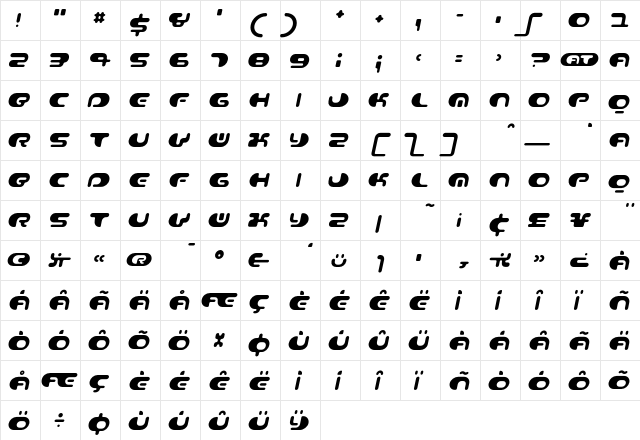
Contour Italic Font Preview
Contour Italic
Design Context for Contour Typeface
Contour is a composed and adaptable typeface that performs quietly and consistently across a wide range of design contexts. The dynamic lean of this cut emphasises speed and emphasis in any layout.
Pro Tip: Try Contour for annotation and caption copy alongside an upright companion — the contrast in angle creates a dynamic but ordered typographic system.